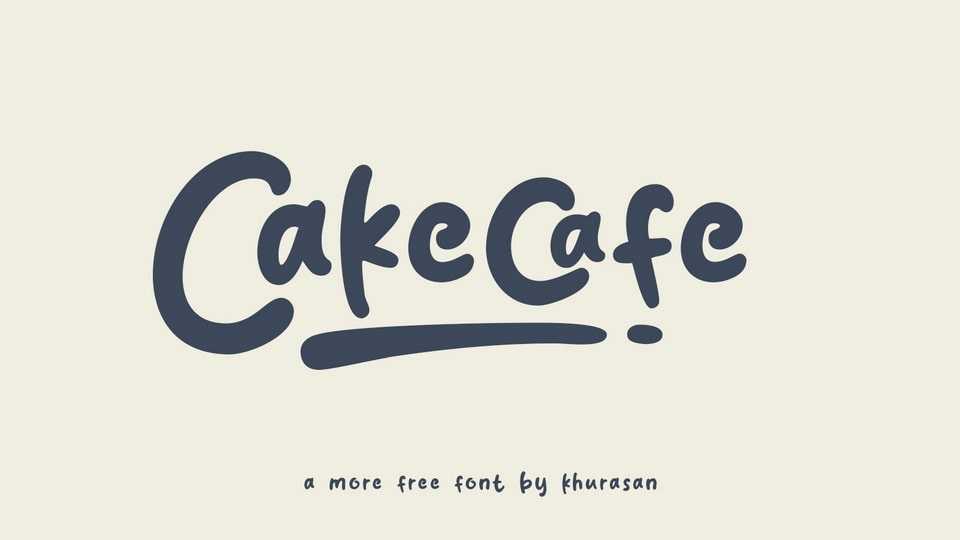
Download Cakecafe font, a cute and playful handwritten font. Cakecafe is perfect for all your graphic design projects like posters, logos, magazines, book covers, banners and more extraordinary designs!